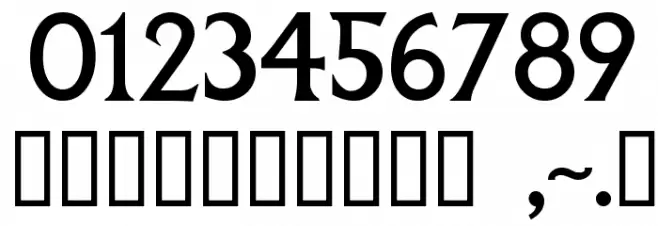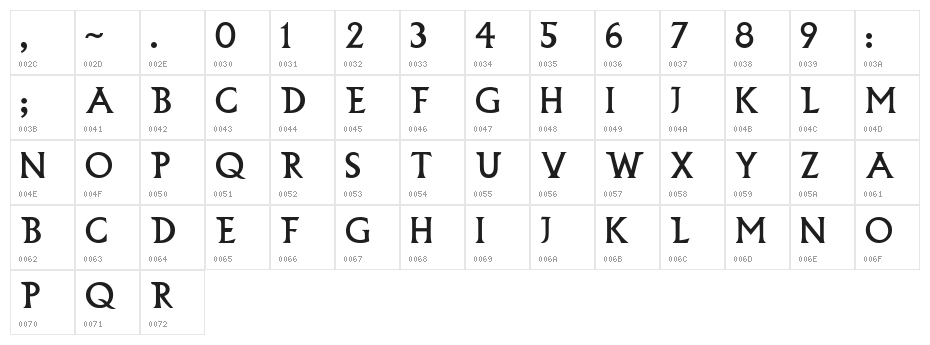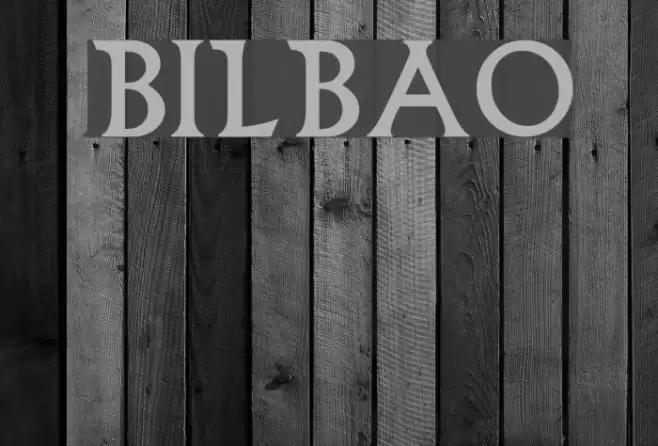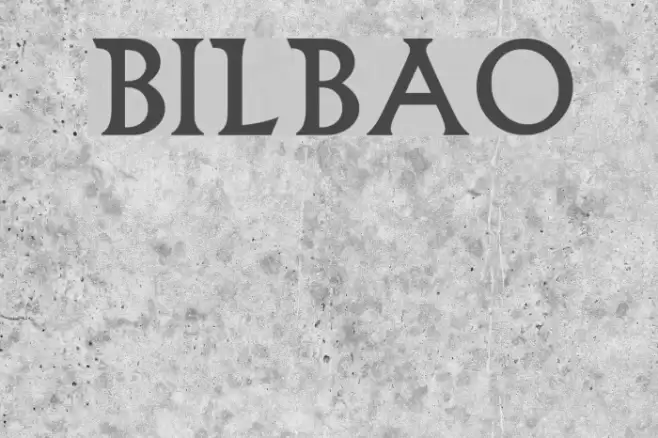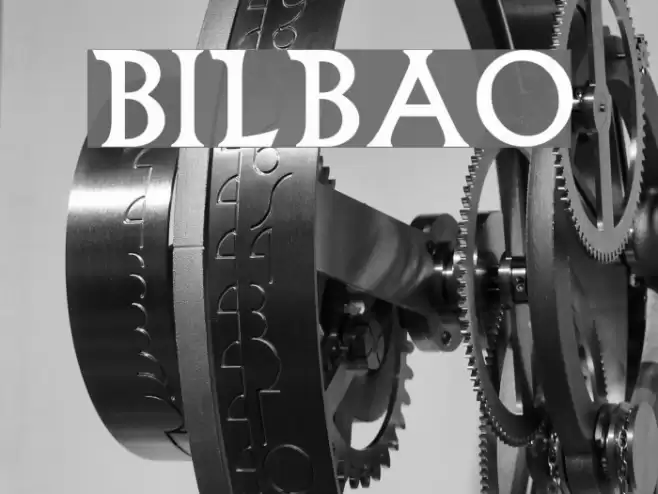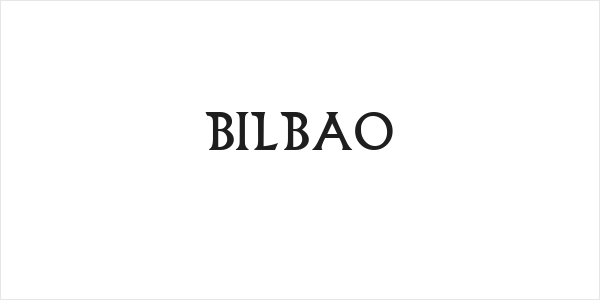
Bilbao Font
Bilbao Description
This font features a bold and striking serif style with a classic yet modern appeal. The uppercase letters are characterized by sharp, angular serifs and a strong vertical emphasis, giving them a commanding presence. The lowercase letters maintain the same boldness with slightly softer curves, offering a harmonious balance. The numerals are equally robust, ensuring clarity and readability. Special characters are designed with the same attention to detail, making them stand out. This font is ideal for making a statement in any design project.
| Proposed Projects | Ideal for branding, headlines, posters, and editorial design where a strong and classic presence is desired. |